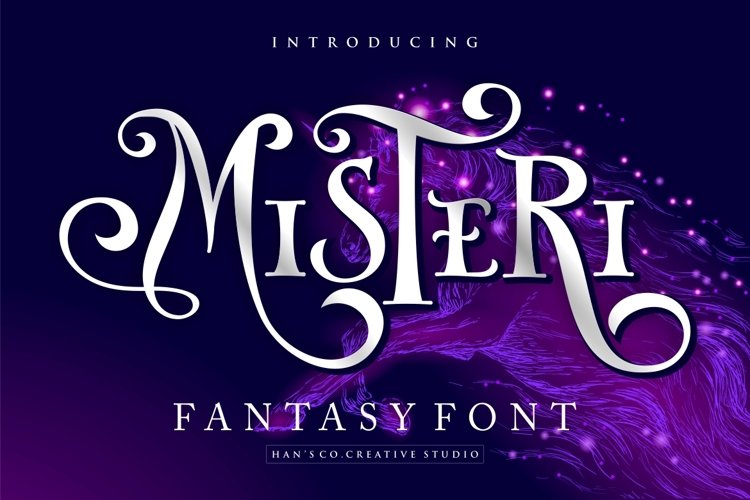
MISTERI FONT
Misteri is a fun display font with little swirls tails. This font come with two style, regular and all caps. Also available alternate in some character. Misteri font is very suitable for creating logo, print template like a poster, branding, shirts, gifts, quote, or anything else.